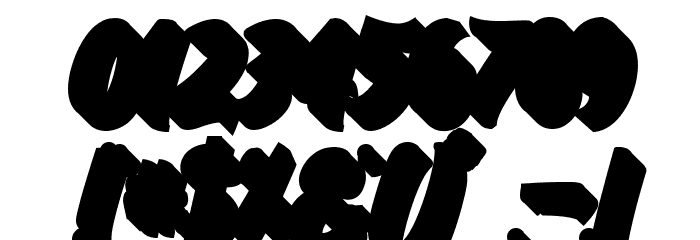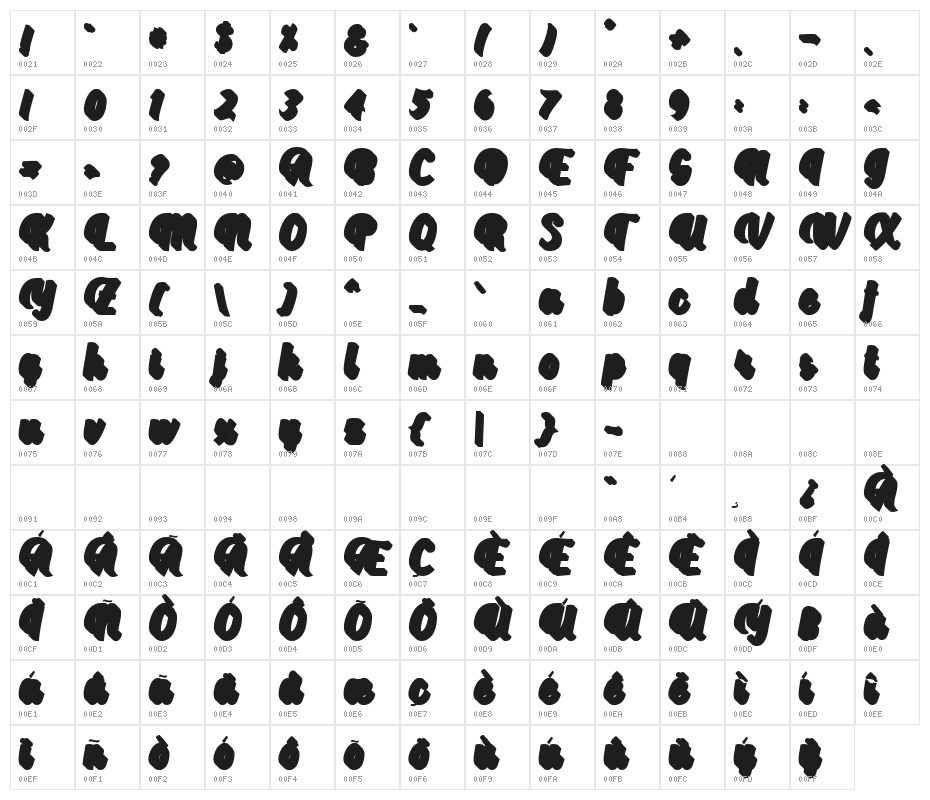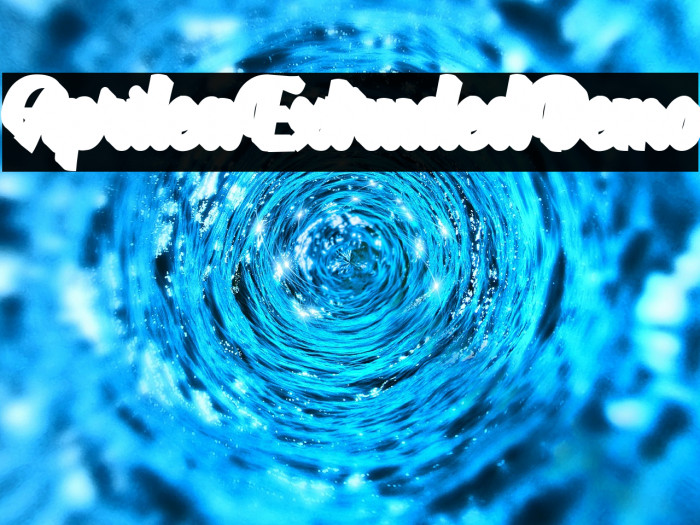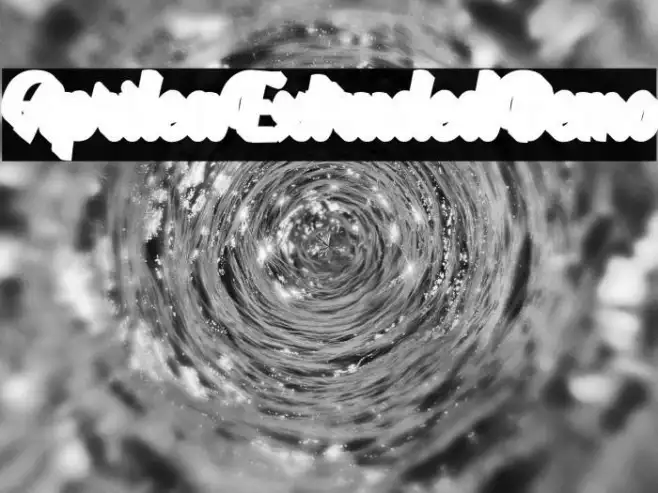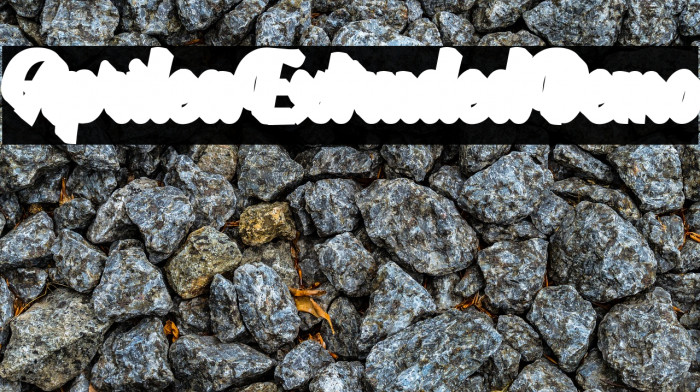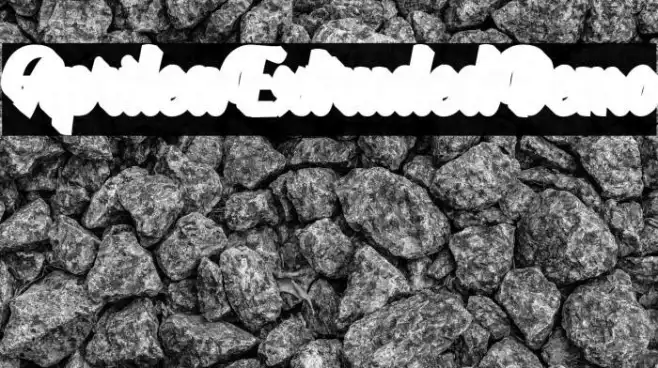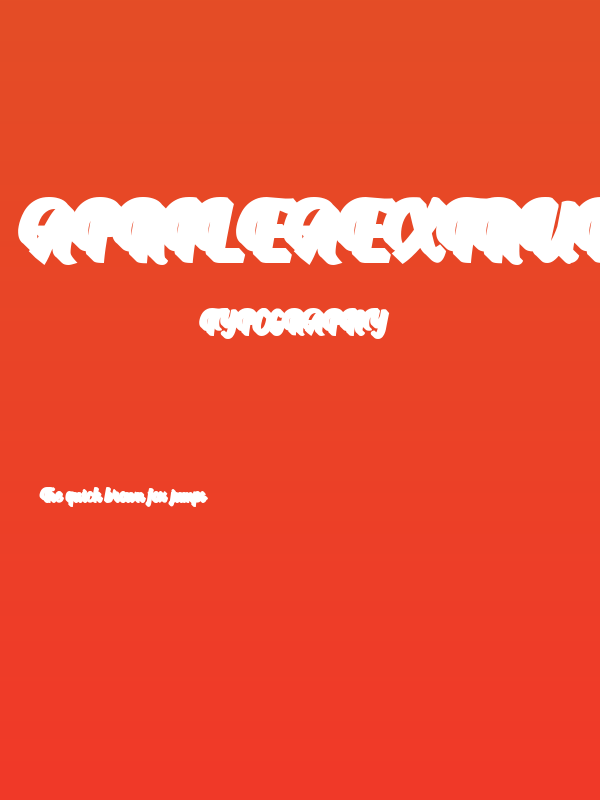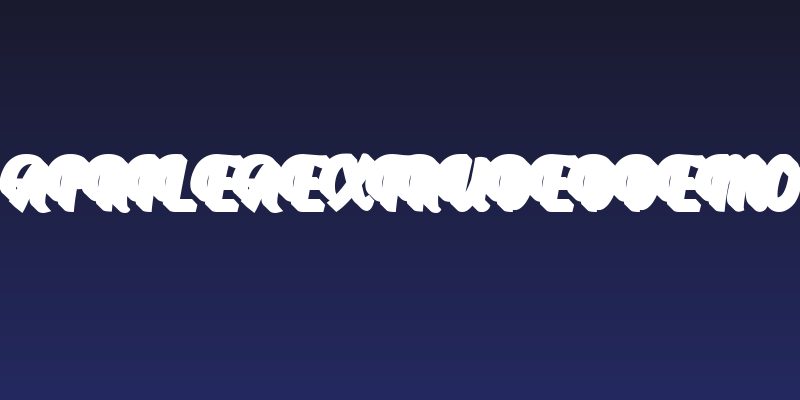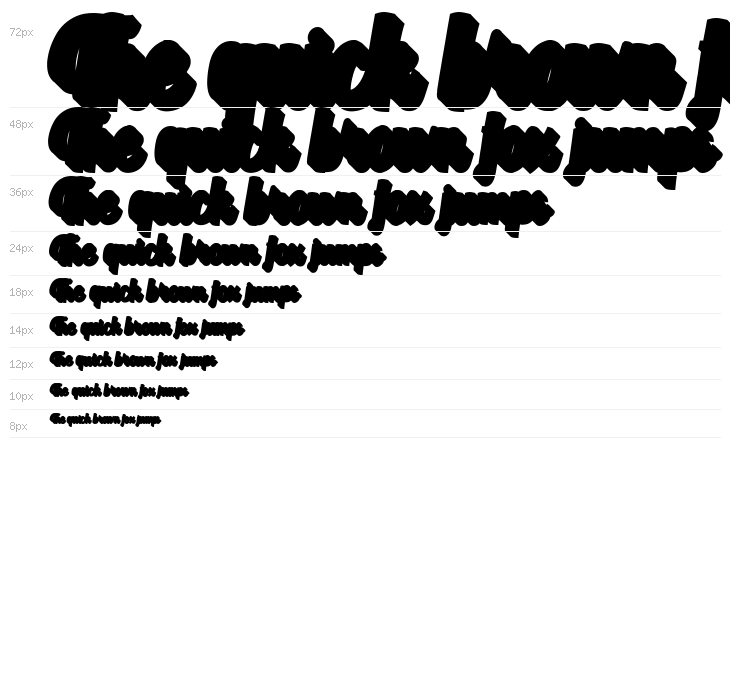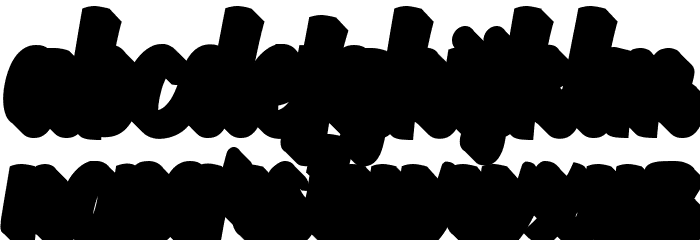
AprileaExtrudedDemo Font
AprileaExtrudedDemo Description
This font features a bold, three-dimensional extruded style that gives it a striking and impactful appearance. The characters are heavily stylized with thick strokes and a shadow effect that creates a sense of depth and dimension. The overall design is playful and dynamic, making it ideal for eye-catching displays. The uppercase and lowercase letters maintain a consistent style, with rounded edges and a uniform thickness that enhances readability despite the boldness. The numbers and special characters follow the same design principles, ensuring a cohesive look across all elements.
| Proposed Projects | Ideal for posters, logos, headlines, and any project requiring a bold, attention-grabbing font. |